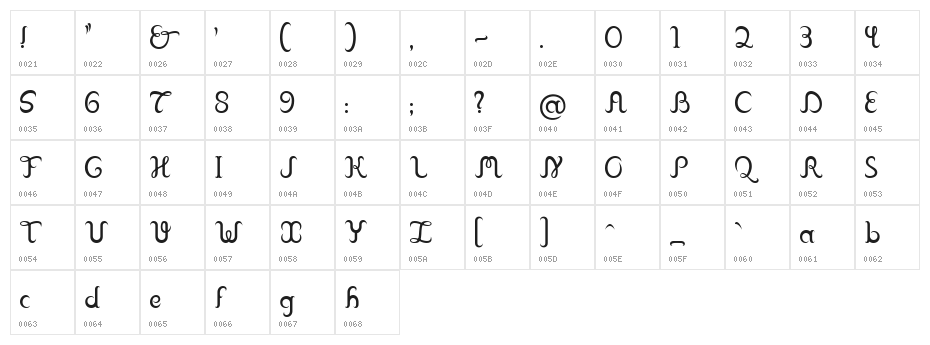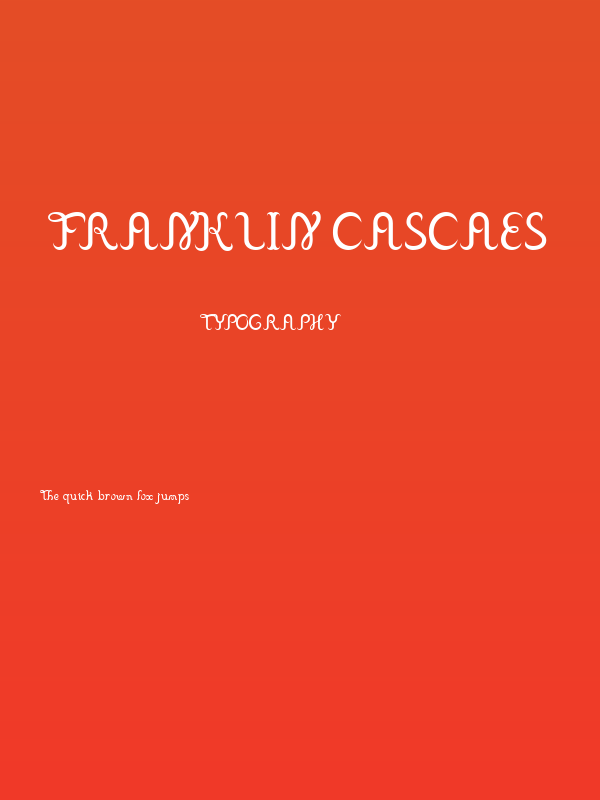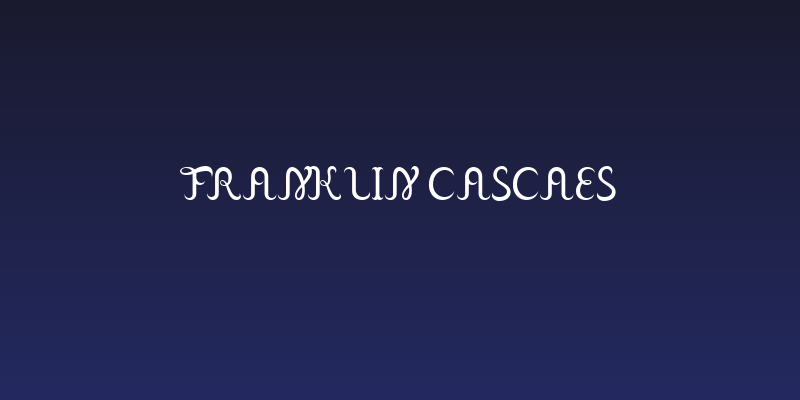
Franklin Cascaes Font
Franklin Cascaes Description
This font features a unique and artistic style with a decorative flair. The characters are characterized by their flowing, curvilinear forms that create a sense of movement and elegance. The uppercase letters have a whimsical quality, with loops and swirls that add a playful touch. The lowercase letters maintain this fluidity, offering a harmonious balance between the upper and lower cases. The numbers and special characters are equally stylized, ensuring consistency throughout the typeface. This font's distinctiveness makes it suitable for creative and artistic projects where a touch of personality is desired.
Use CaseHeadlines, Logos, Artistic projects
Proposed ProjectsIdeal for invitations, greeting cards, artistic posters, and branding projects that require a unique and playful touch.